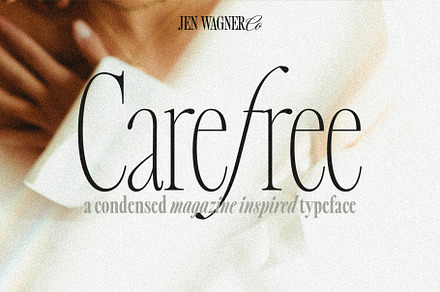
Carefree | A Crisp 16-Font Serif
A complete serif system: sixteen fonts spanning eight weights with matching italics, sharp-cut and high-contrast throughout. At this size the family stops being a typeface and becomes infrastructure – an entire brand can run on it without reaching for anything else.
The crispness holds up under scrutiny. Serifs stay defined at display sizes where softer families go mushy, and the italics are genuinely drawn rather than mechanically sloped, so emphasis in running text has real character.
- Extensive multilingual Latin coverage
- Small caps, ligatures, alternates and multiple numeral styles
- Consistent metrics across the full family
Where it works
- Complete brand typographic systems
- Editorial design and book publishing
- Luxury, fashion and hospitality identity
- Display headlines and packaging